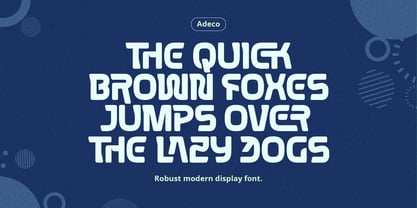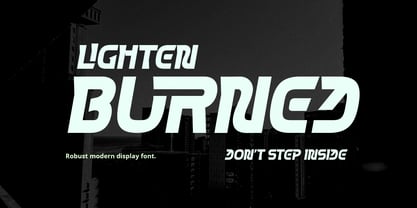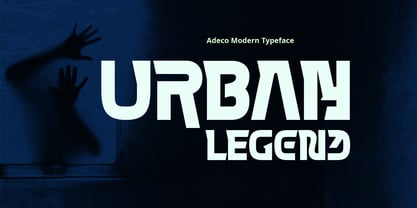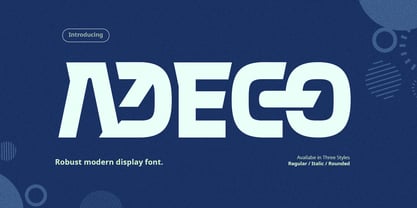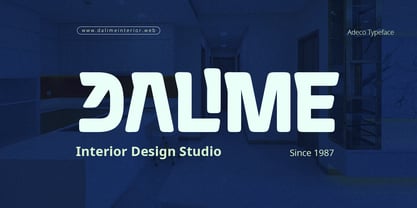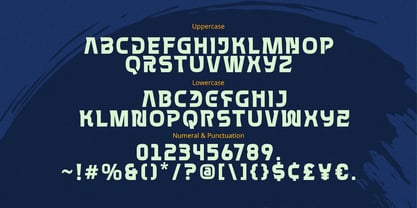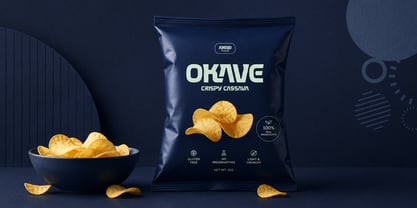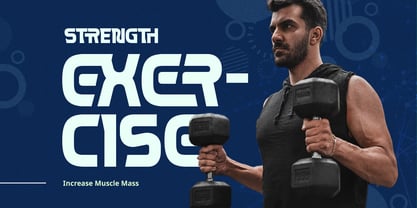
Adeco
von Grontype
Die Schriftfamilie Adeco wurde von Jarnawi Saja entworfen und von Grontype veröffentlicht. Adeco enthält 3 Stile und Familienpaketoptionen. Mehr über diese Familie
Adeco is a modern display bold font with a stylish and distinctive character. Designed to make a strong visual impact, it’s perfect for logotypes, logo taglines, bold headlines, branding, posters, packaging, and any design that demands attention. Complete with carefully crafted ligatures, Adeco brings a unique and polished look to every project while maintaining excellent readability and personality.
Designer: Jarnawi Saja
Foundry: Grontype